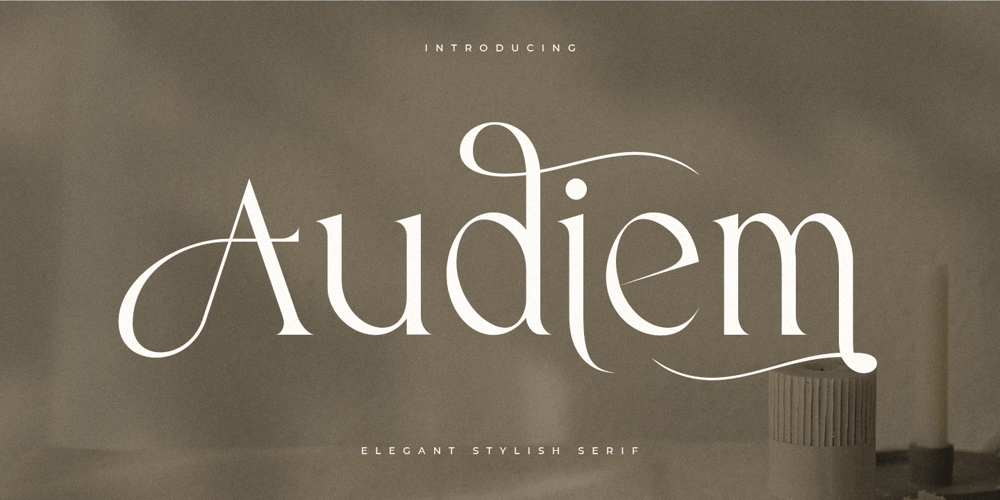
Audiem
Audiem font
Audiem Font Family was designed by Zamroni Hamzah and published by Sensatype Studio. Audiem contains 1 styles and family package options. A serif that we created special for elegant branding needs, with extra ligature and alternates in unique shape will be ready to add value of your brand. It so nice to leverage designer or product owner that need solutions to make their design look more classy and modern. And specially for Kingdom font, We prepared any ligatures, and any alternate characters to help you create unlimited variations for your creative needs.Audiem serif font ready with: Any options to get creative variations (combination of Alternate and Ligatures) Preview as a inspirations that you can do with Audiem font Ready with Lowercase and Uppercase characters Wish you enjoy our font. ๐Ÿ™‚